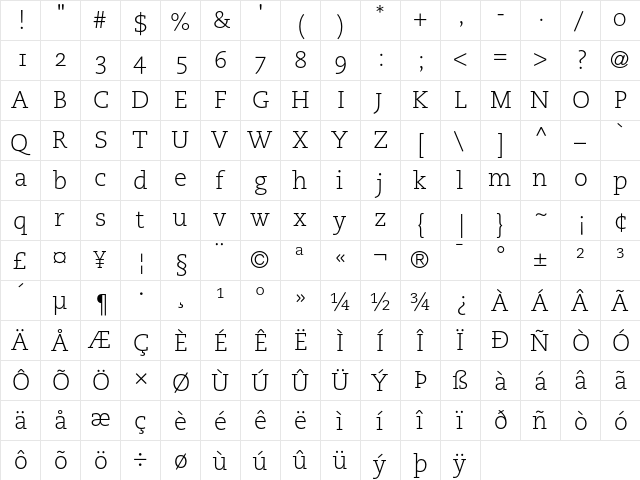
PMN Caecilia 45 Light Oldstyle Figures
Design Context for PMN Caecilia Typeface
PMN Caecilia brings classic typographic sensibility to the table — its serifs and measured letterforms reflect centuries of print heritage. Its slender proportions lend an understated elegance to any composition.
Pro Tip: Use PMN Caecilia with generous line-spacing for the most refined reading experience — its light weight benefits from room between lines.